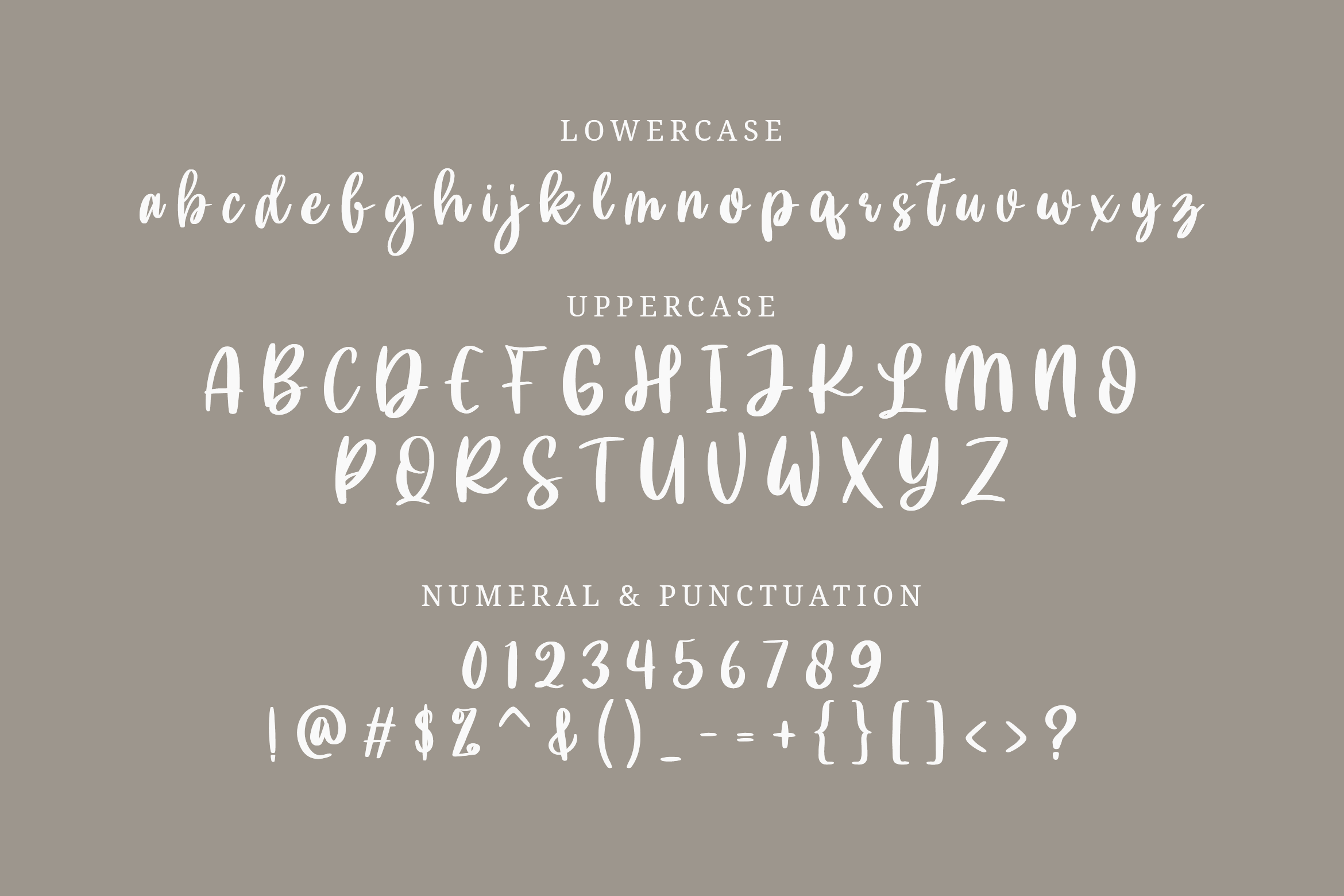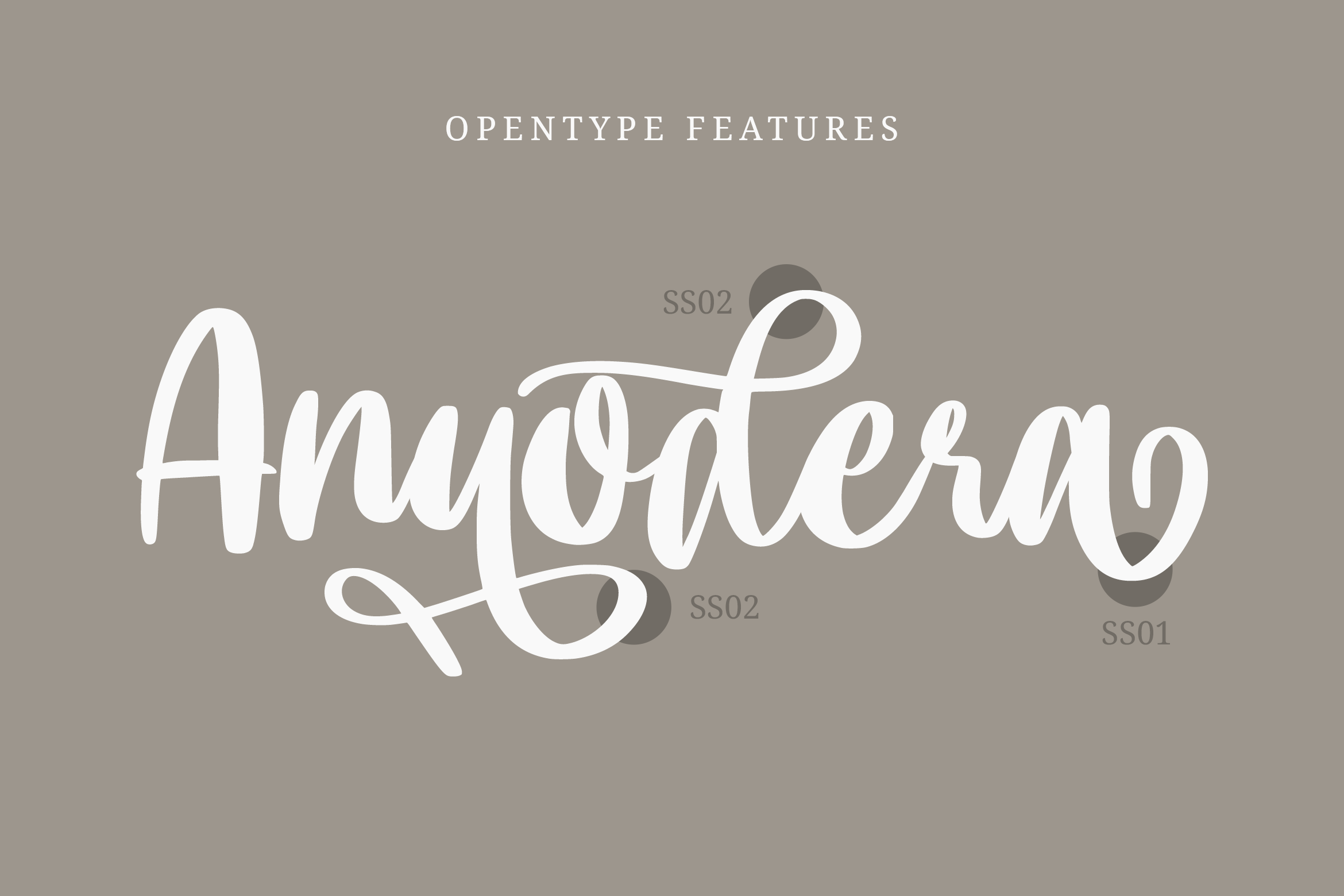
Doemhand Script Font
This is a beautiful and romantic handwritten font. It has a classy, elegant, and modern look that can be used for logos, branding, invitations, stationery, wedding designs, social media posts, and much more! This font is PUA encoded which means you can access all of the glyphs and swashes with ease!